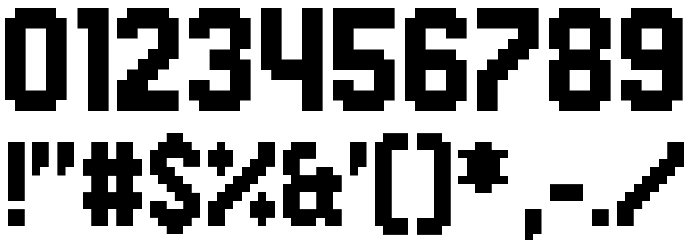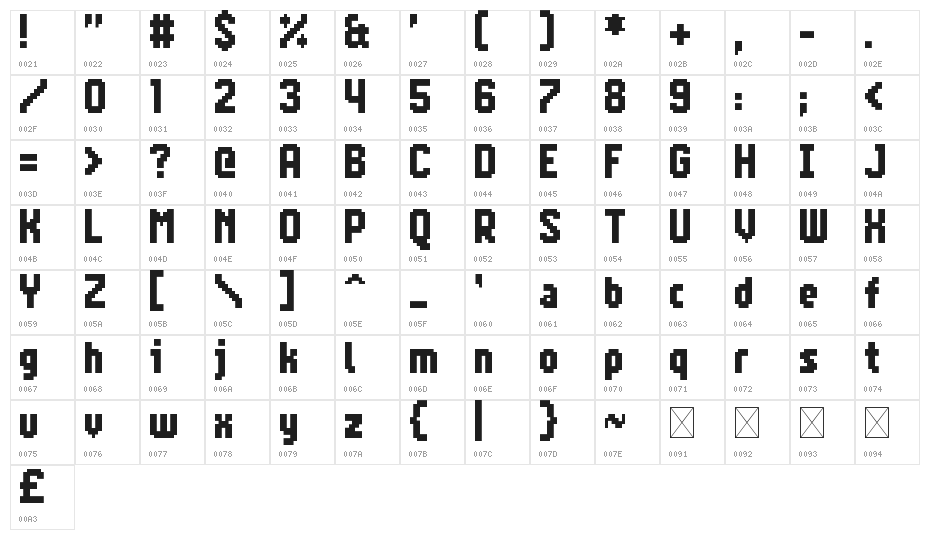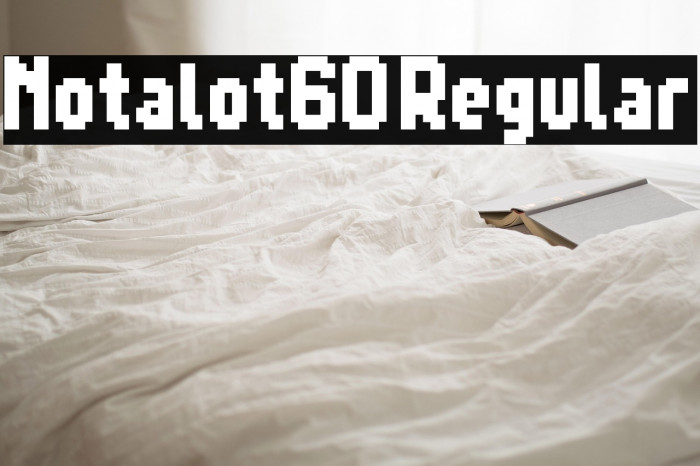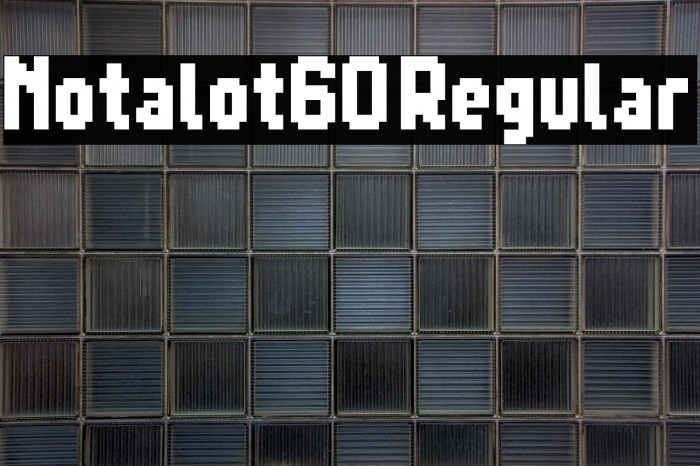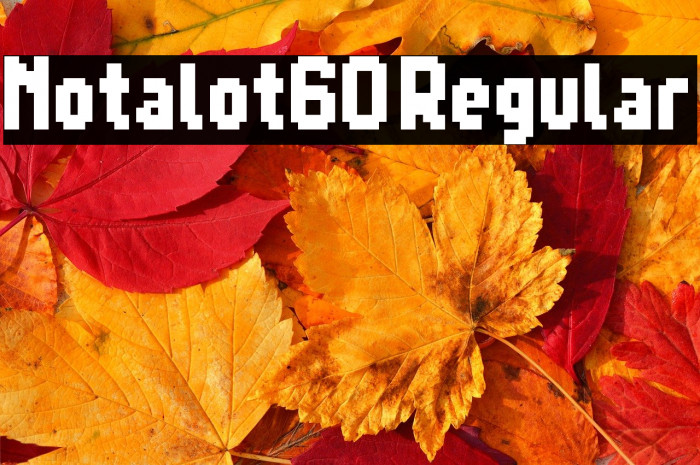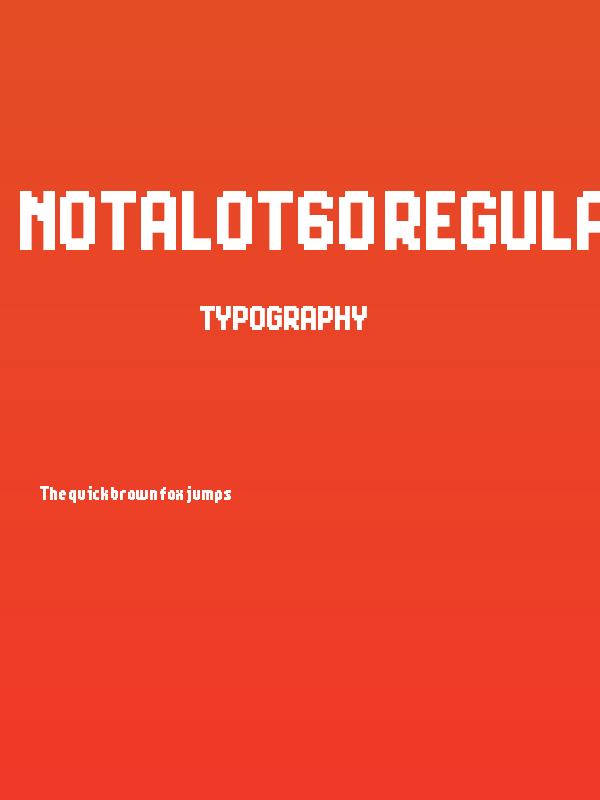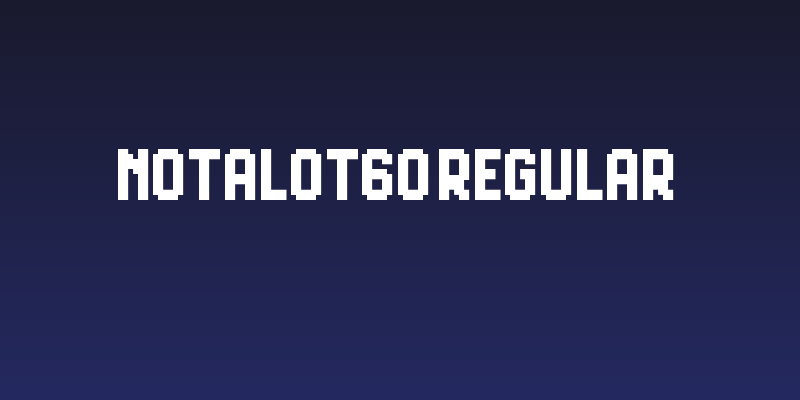
Notalot60 Regular Font
Notalot60 Regular Description
This font features a bold, blocky design reminiscent of classic pixel art. Each character is constructed with a uniform grid-like structure, giving it a retro, digital appearance. The uppercase and lowercase letters maintain a consistent height and width, contributing to a cohesive and structured look. The numerals and special characters follow the same pixelated style, ensuring visual harmony across all elements. This font's simplicity and geometric precision make it ideal for projects that require a nostalgic or tech-inspired aesthetic.